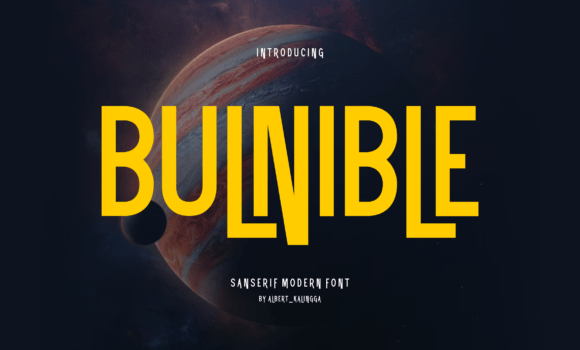
bulnible
Bulnible Font – Free Download Introduction to Bulnible Font Bulnible is an elegant and modern sans serif font. 📸 Preview Gallery 4 images 📌 Product Name Bulnible Font 👤 Author kalingga.albert 📂 Category Explore ⬇️ Download Bulnible Font FREE Free